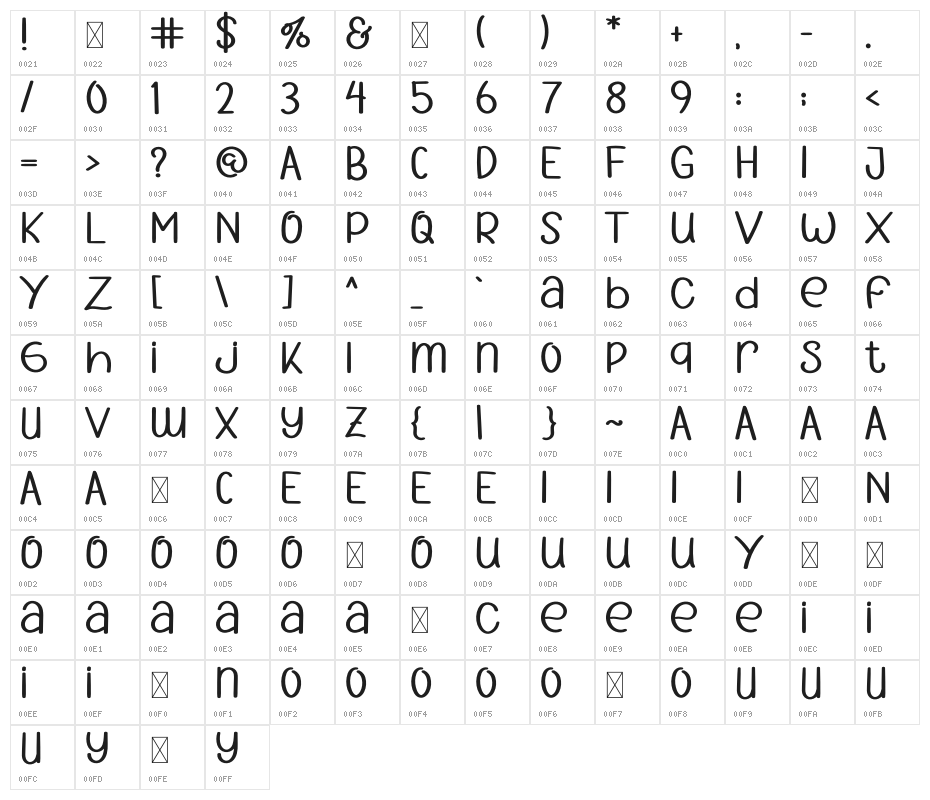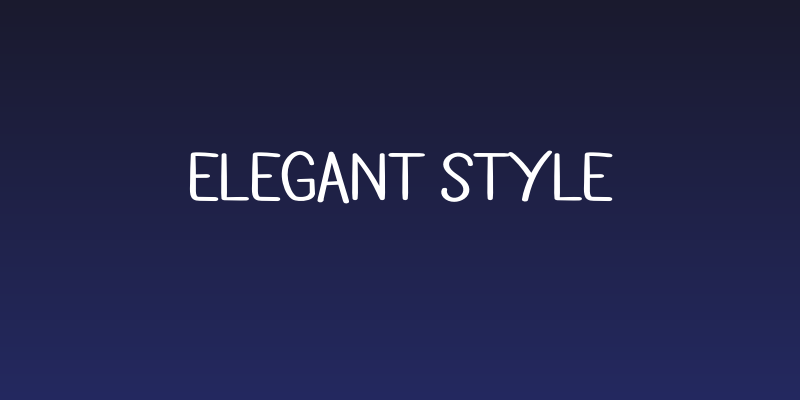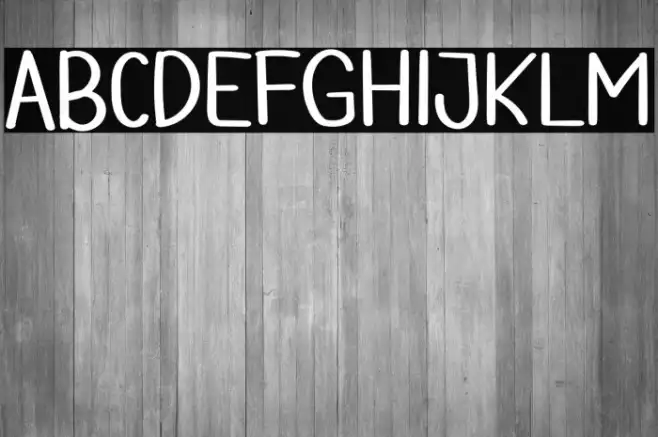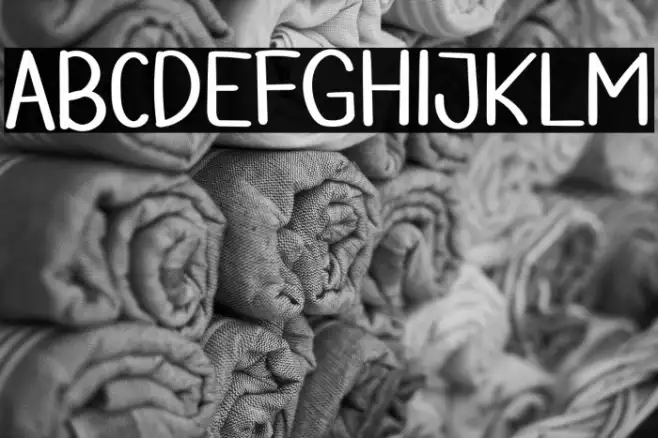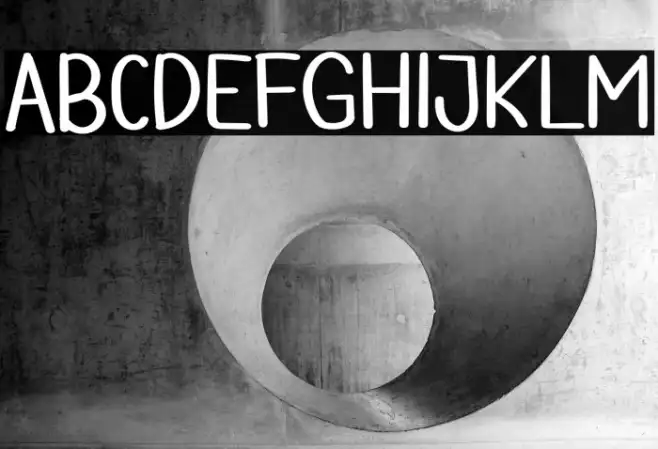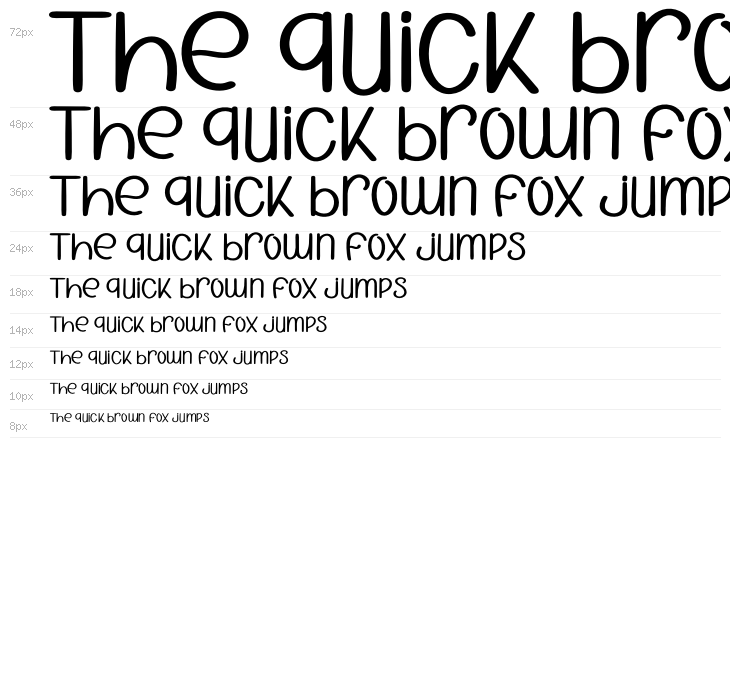
Elegant Style Font
Elegant Style Description
This font features a playful and casual handwritten style, characterized by smooth curves and a friendly appearance. The uppercase letters are bold and slightly rounded, giving them a welcoming feel. The lowercase letters maintain a consistent flow, with some characters like 'e' and 'g' having unique loops that add to the font's charm. Numbers are clear and legible, with a slight tilt that complements the overall style. Special characters are well-integrated, maintaining the font's cohesive look. This typeface is versatile, suitable for projects that require a personal touch.
| Use Case | Logos, Headlines, Informal Text |
| Proposed Projects | Ideal for greeting cards, children's books, casual branding, and social media graphics. |